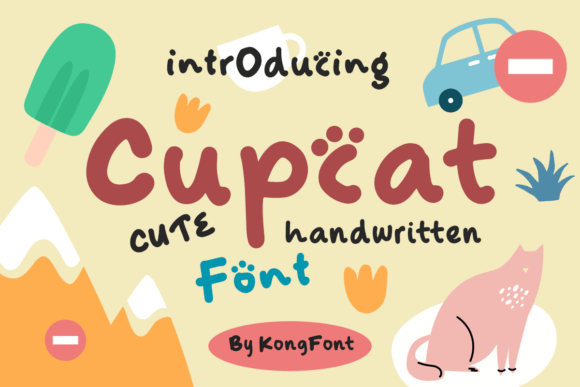
Cupcat Font: Where Whimsy Meets Design
There’s something magical about sitting down with a cup of coffee and a blank sheet of paper, ready to bring a design to life. The possibilities are endless, and the excitement is palpable. But what makes a design truly special is the font that brings it all together. That’s where the Cupcat Handwritten Font comes in – a delightful combination of charm and playfulness that adds a touch of warmth and creativity to any project.
This versatile font is perfect for designers looking to add a friendly, approachable vibe to their personal projects, logos, invitations, and branding. With its neat, whimsical strokes, Cupcat Font is a valuable tool in any designer’s arsenal, offering a level of expressiveness that’s hard to find in more traditional fonts.
Cupcat Font Key Features
- Font Family: Cupcat is a sans-serif font family designed for modern and playful typography.
- Character Set: Cupcat includes a wide range of characters, including Latin, Cyrillic, and Greek alphabets, as well as punctuation and symbols.
- Unique Characteristics: Cupcat features a distinctive, rounded design with a friendly and approachable feel, making it ideal for children’s books, educational materials, and other applications where a playful tone is desired.
Cupcat Font Review
I recently had the chance to work with the Cupcat Font and I must say it’s a unique addition to any design project. ✨ One of the things that works well with this font is its playful and whimsical feel, making it perfect for projects that need a touch of fun and personality. The font’s ability to convey a sense of innocence and playfulness is a major plus, especially for projects targeting a younger audience.
Another strength of the Cupcat Font is its versatility. ✨ It can be used in a variety of contexts, from children’s book illustrations to social media graphics and even advertising campaigns. The font’s flexibility is a major advantage, making it a great choice for designers who need a font that can adapt to different design styles.
- ⚠️ The font may not be suitable for projects that require a more serious or formal tone, as it can come across as too playful or juvenile.
- ⚠️ The font’s uniqueness can also be a limitation, as some designers may find it too unconventional for their taste.
Overall, I would say that the Cupcat Font is a solid choice for designers who need a fun and playful font for their projects. While it may have some limitations, its versatility and unique feel make it a great addition to any design library.
To get the most out of the Cupcat Font, use it for:
- Cute and playful branding